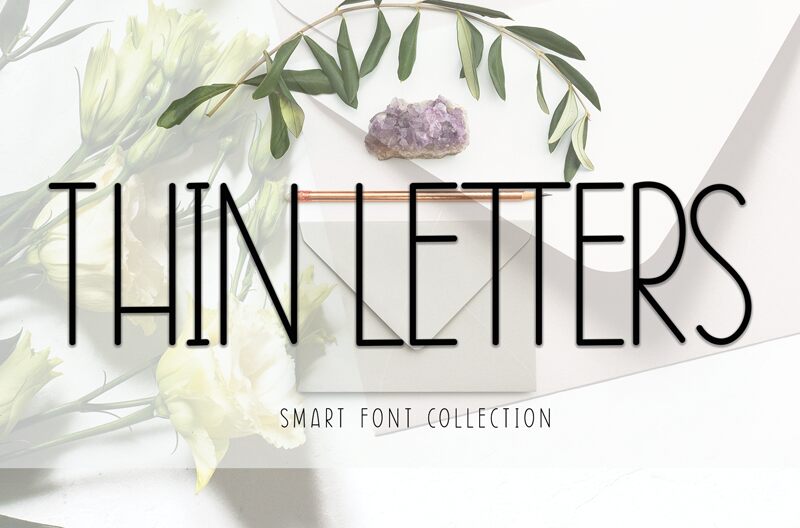
Thin Letters
Thin Letters font is a light handwritten typeface designed by Etik Fatimah. Its clear and elegant appearance is attributed to its clean letterforms, modern geometric influences, and condensed width. Each character has smooth rounded corners for soft curves, while each line’s thickness remains the same throughout the passage of text.
The free light font features just the right touch of contemporary style perfect for branding projects, advertising designs, business cards, stationery design, social media imaging, body text in editorials especially magazines and blogs.